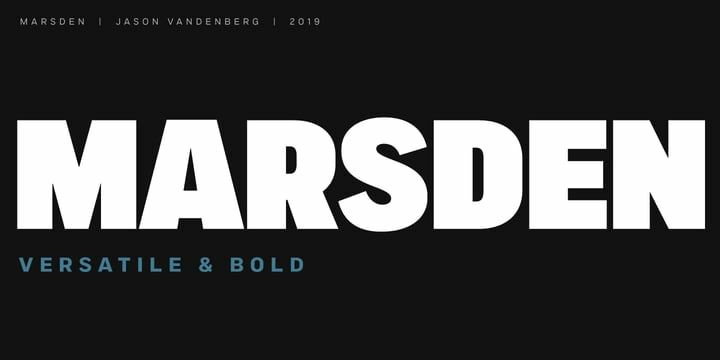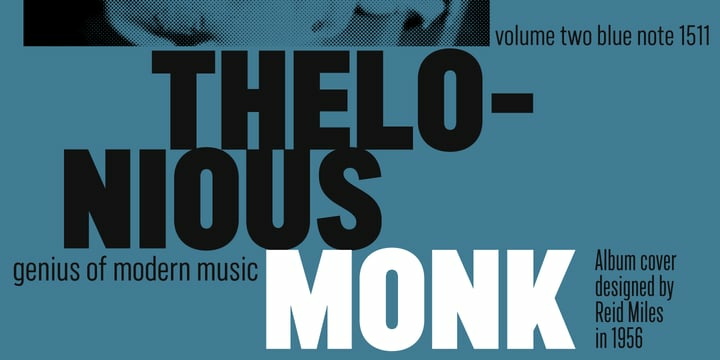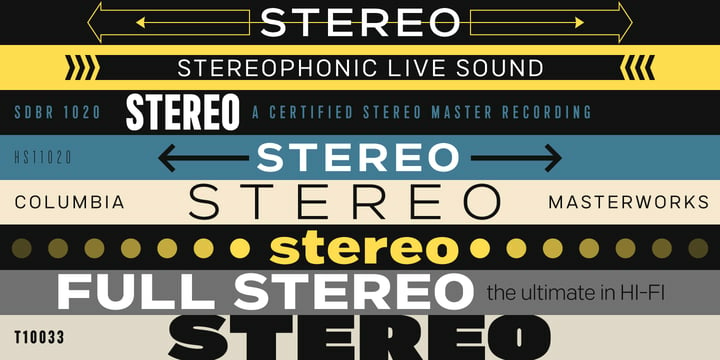
Marsden Font Family
Marsden Font FamilyMarsden is a bold, no-nonsense Grotesque. It was designed for display, branding, advertising, packaging or anywhere a strong voice is needed. Marsden is built on a geometric foundation, with just enough warmth to keep the style confident and lively. The family features 8 widths in 12 weights; from a Slim Hairline to an extremely bold Wide Super. The fonts flow from condensed to wide with design intent. The condensed forms feature flat sides and subtle curves, while the wider forms feature rounded sides and open curves. The character set is robust, covering extended latin. The default forms are contemporary with alternates including: single-story a, two-story g, curved terminal l, raised vertex M, rounded top A, fully rounded G, rounded leg R, straight tail Q and straight descender y, all separated into individual style sets for control and customization. Completing the family are the Text fonts where the weights, widths and spacing are adjusted for smaller use.